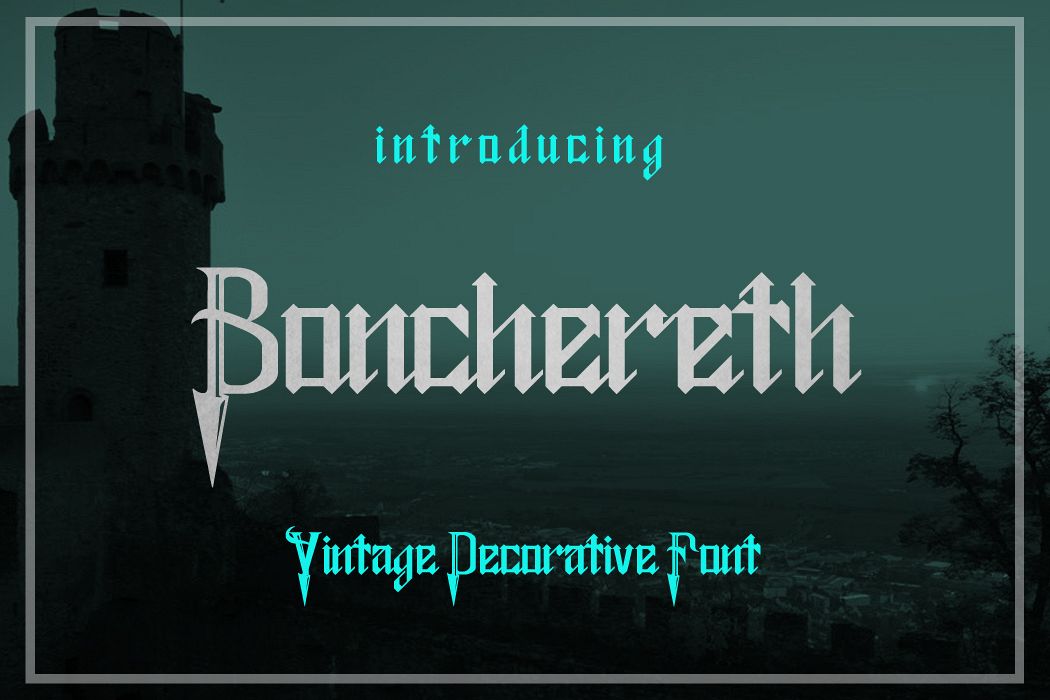
Bonchereth Font
Bonchereth is a nice vintage typeface.Unique vintage & ornamental style custom font. Great for your vintage themed designs, logo, headline, letterheads, etc.